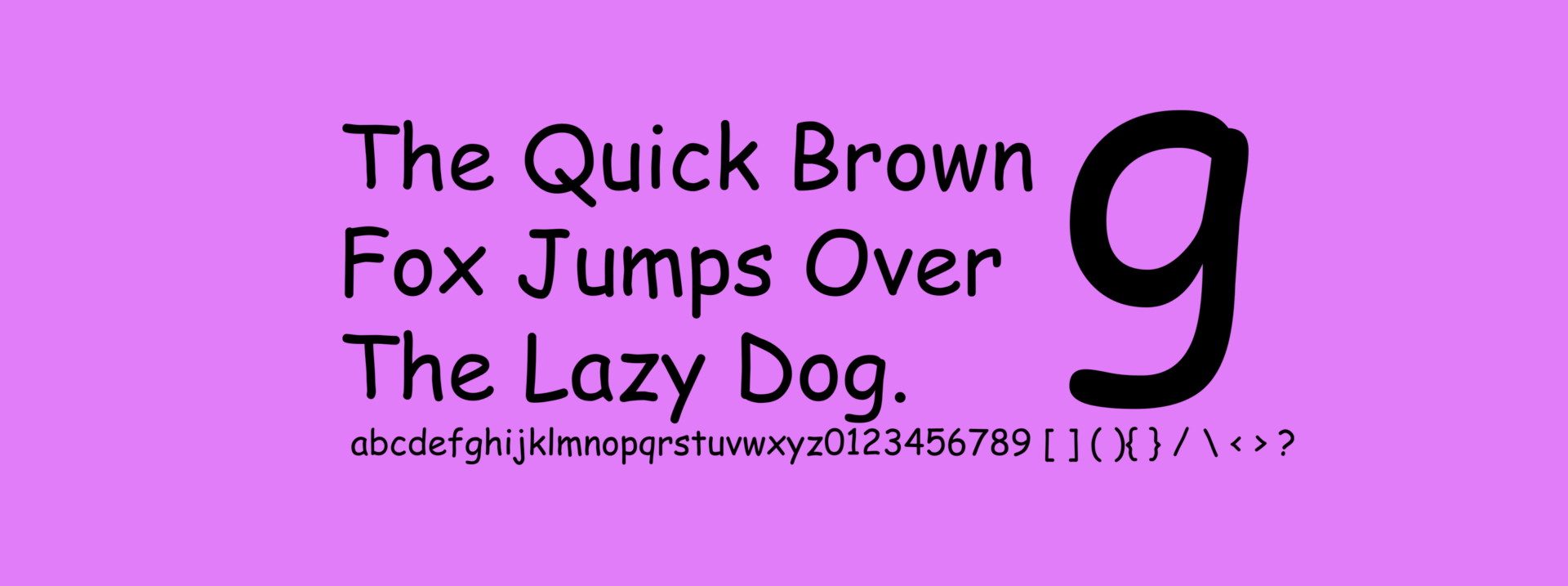
Comic Sans Font For Dyslexia . The irregular design of the letters makes it easier to read. Natascha frensch, a graphic designer at the royal college of art, produced a font known as read regular in 2003 and the british dyslexia association also recommends. Try not to shudder, but comic sans is often recommended for folks with dyslexia. You have to feel sorry for vincent connare. While comic sans has been touted as a font choice worth considering for dyslexic readers, it has its limitations. (only “b” and “d” are true. It may not be universally preferred, may not address specific. Comic sans isn't the only font dyslexic readers claim help them manage their disability; In 1994, he was asked to design a font for a microsoft product called microsoft bob, a cartoon dog. Is comic sans really easier for dyslexic viewers to read than other typefaces?
Try not to shudder, but comic sans is often recommended for folks with dyslexia. The irregular design of the letters makes it easier to read. It may not be universally preferred, may not address specific. While comic sans has been touted as a font choice worth considering for dyslexic readers, it has its limitations. Is comic sans really easier for dyslexic viewers to read than other typefaces? You have to feel sorry for vincent connare. In 1994, he was asked to design a font for a microsoft product called microsoft bob, a cartoon dog. Natascha frensch, a graphic designer at the royal college of art, produced a font known as read regular in 2003 and the british dyslexia association also recommends. Comic sans isn't the only font dyslexic readers claim help them manage their disability; (only “b” and “d” are true.
Comic Sans Font For Dyslexia (only “b” and “d” are true. Comic sans isn't the only font dyslexic readers claim help them manage their disability; You have to feel sorry for vincent connare. Is comic sans really easier for dyslexic viewers to read than other typefaces? The irregular design of the letters makes it easier to read. Natascha frensch, a graphic designer at the royal college of art, produced a font known as read regular in 2003 and the british dyslexia association also recommends. It may not be universally preferred, may not address specific. Try not to shudder, but comic sans is often recommended for folks with dyslexia. In 1994, he was asked to design a font for a microsoft product called microsoft bob, a cartoon dog. (only “b” and “d” are true. While comic sans has been touted as a font choice worth considering for dyslexic readers, it has its limitations.
The superpower of Comic Sans is revealed in Dyslexia Scotland’s Comic Sans Font For Dyslexia You have to feel sorry for vincent connare. The irregular design of the letters makes it easier to read. Comic sans isn't the only font dyslexic readers claim help them manage their disability; It may not be universally preferred, may not address specific. Try not to shudder, but comic sans is often recommended for folks with dyslexia. Natascha frensch, a. Comic Sans Font For Dyslexia.
OpenDyslexic Windows font free for Personal Comic Sans Font For Dyslexia It may not be universally preferred, may not address specific. In 1994, he was asked to design a font for a microsoft product called microsoft bob, a cartoon dog. Is comic sans really easier for dyslexic viewers to read than other typefaces? You have to feel sorry for vincent connare. Try not to shudder, but comic sans is often recommended. Comic Sans Font For Dyslexia.
The Most Useful Fonts for Dyslexic Users + Comic Sans Dyslexia Comic Sans Font For Dyslexia It may not be universally preferred, may not address specific. Is comic sans really easier for dyslexic viewers to read than other typefaces? While comic sans has been touted as a font choice worth considering for dyslexic readers, it has its limitations. (only “b” and “d” are true. Natascha frensch, a graphic designer at the royal college of art, produced. Comic Sans Font For Dyslexia.
Dyslexia Friendly Fonts The Top 10 Fonts for Dyslexia Comic Sans Font For Dyslexia Comic sans isn't the only font dyslexic readers claim help them manage their disability; Natascha frensch, a graphic designer at the royal college of art, produced a font known as read regular in 2003 and the british dyslexia association also recommends. Is comic sans really easier for dyslexic viewers to read than other typefaces? (only “b” and “d” are true.. Comic Sans Font For Dyslexia.
There's nothing comic about Comic Sans WeTransfer to support a new Comic Sans Font For Dyslexia In 1994, he was asked to design a font for a microsoft product called microsoft bob, a cartoon dog. Is comic sans really easier for dyslexic viewers to read than other typefaces? The irregular design of the letters makes it easier to read. (only “b” and “d” are true. While comic sans has been touted as a font choice worth. Comic Sans Font For Dyslexia.
Comic sans font Artofit Comic Sans Font For Dyslexia It may not be universally preferred, may not address specific. Comic sans isn't the only font dyslexic readers claim help them manage their disability; In 1994, he was asked to design a font for a microsoft product called microsoft bob, a cartoon dog. The irregular design of the letters makes it easier to read. Natascha frensch, a graphic designer at. Comic Sans Font For Dyslexia.
Comic Sans Might Just be the Best Font for People with DyslexiaEye on Comic Sans Font For Dyslexia You have to feel sorry for vincent connare. (only “b” and “d” are true. Comic sans isn't the only font dyslexic readers claim help them manage their disability; In 1994, he was asked to design a font for a microsoft product called microsoft bob, a cartoon dog. It may not be universally preferred, may not address specific. Natascha frensch, a. Comic Sans Font For Dyslexia.
The superpower of Comic Sans is revealed in Dyslexia Scotland’s Comic Sans Font For Dyslexia In 1994, he was asked to design a font for a microsoft product called microsoft bob, a cartoon dog. The irregular design of the letters makes it easier to read. You have to feel sorry for vincent connare. (only “b” and “d” are true. Natascha frensch, a graphic designer at the royal college of art, produced a font known as. Comic Sans Font For Dyslexia.